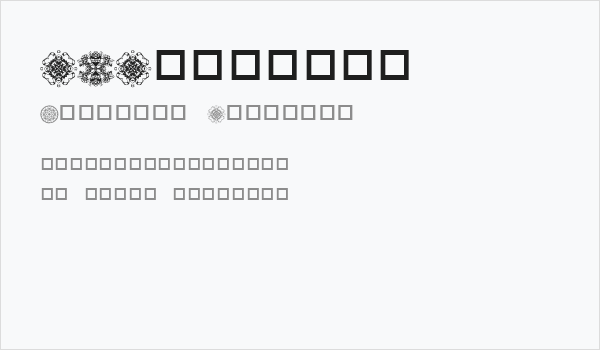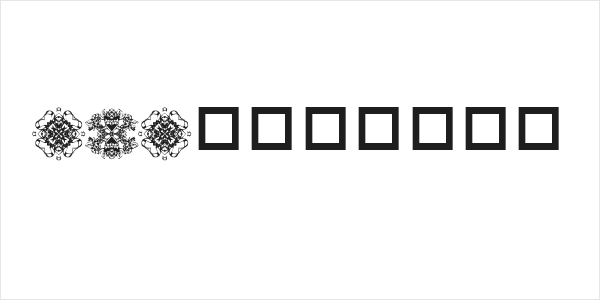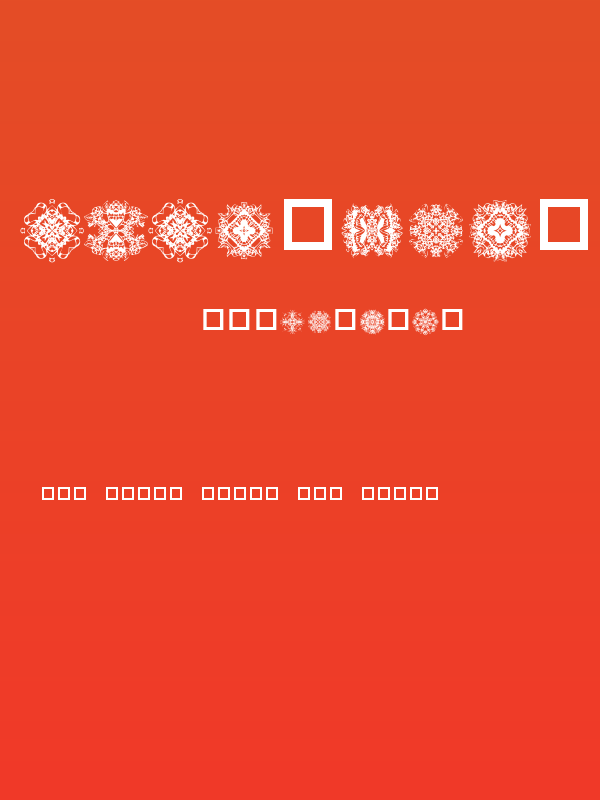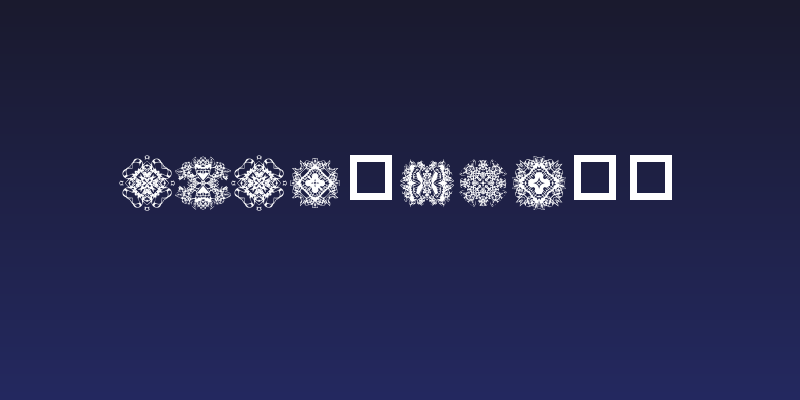
DLDesigns3 Font
DLDesigns3 Description
This set features highly decorative, intricate mandala-like symbols and geometric ornaments, rather than standard alphanumeric characters. The designs are ornate, symmetrical, and detailed, suitable for embellishment or decorative purposes.
| Overall Style | Decorative, Ornamental |
| Use Case | Decorative elements, embellishments, graphic design accents |
| Proposed Projects | Decorative borders, invitations, certificates, digital scrapbooking, art projects. |